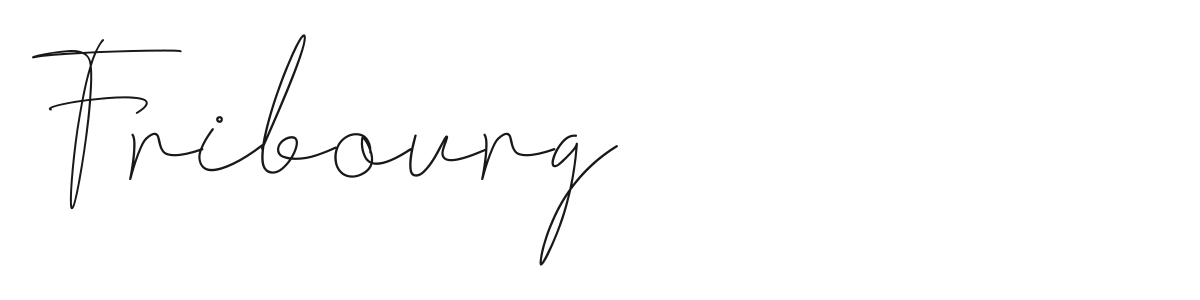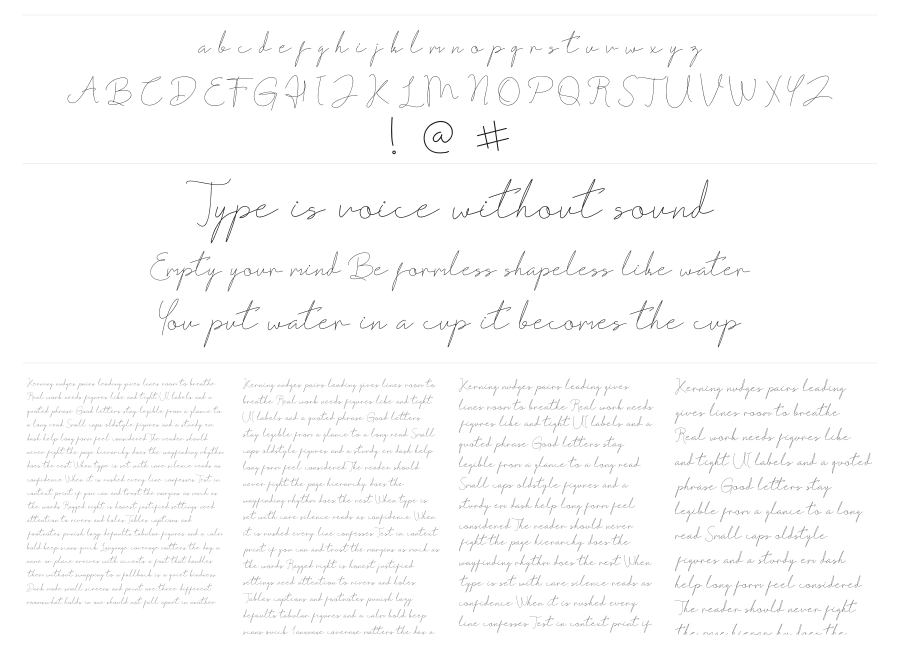
Fribourg
Fribourg is a hairline cursive script with long, looping connecting strokes and a distinctly airy presence. The near-zero stroke contrast keeps it light and modern while the flowing joins give it genuine calligraphic warmth. It reads best at large sizes where the delicate ink-line quality can breathe.